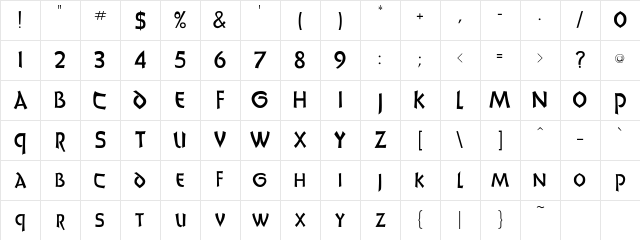
Uncle Regular Free Font
Uncle Regular
Uncle Family
Design Context for Uncle
Uncle is a composed and adaptable typeface that performs quietly and consistently across a wide range of design contexts.